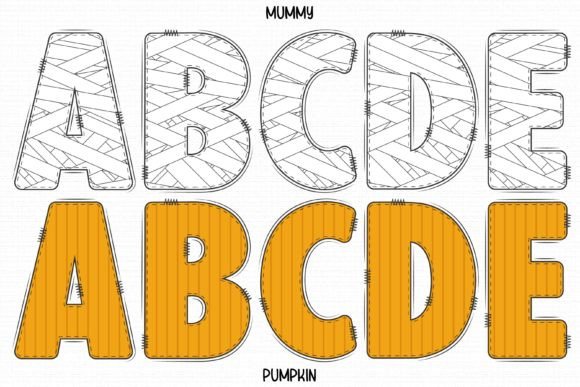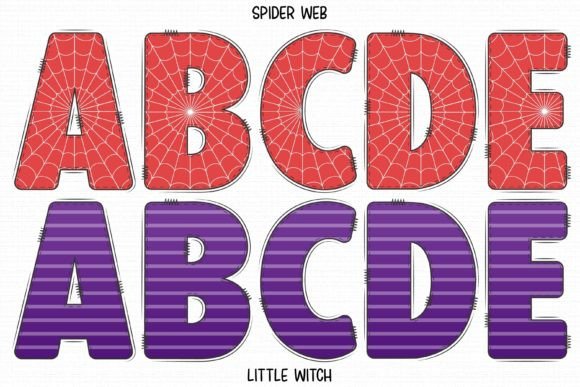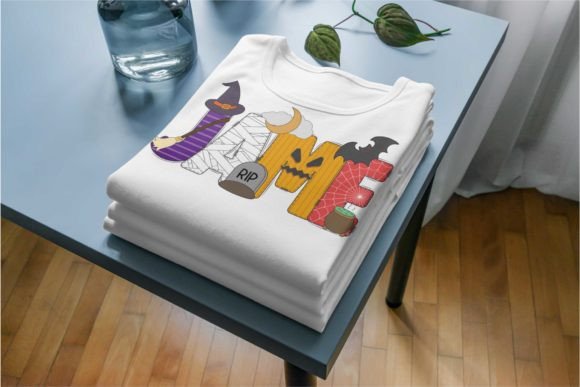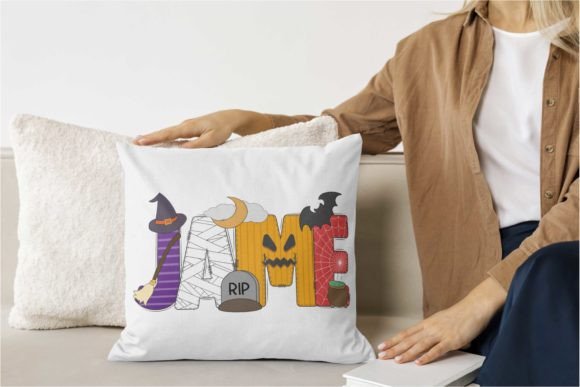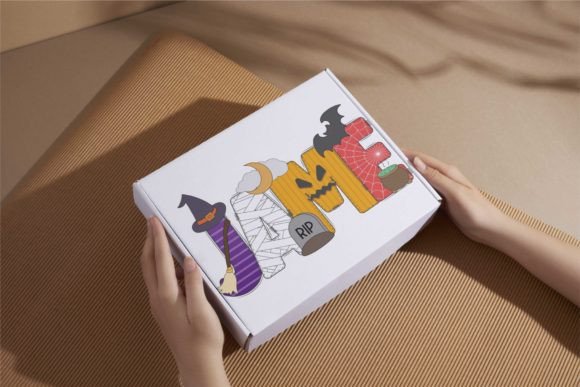
Introduction to Little Witch Font
As a designer, there’s nothing quite like the thrill of bringing a creative project to life. The moment when a concept clicks, and the design begins to take shape, is a rush like no other. But what about those moments when you’re stuck, searching for the perfect font to elevate your design and make it truly stand out? That’s where the Little Witch Font comes in – a delightful, Halloween-styled font that’s sure to cast a spell on your audience.
Perfect for designers looking to add a touch of whimsy and personality to their work, the Little Witch Font is a valuable resource that’s sure to become a go-to for any creative project. With its high-quality, detailed design and transparent background, this font is ideal for adding a pop of color and fun to your designs. Whether you’re working on a Halloween-themed project or simply want to add a touch of magic to your work, the Little Witch Font is the perfect design resource to have in your toolkit.
Key Features of Little Witch Font
- Unique, whimsical design perfect for creative projects and fantasy-themed artwork
- Designed with a playful, magical feel, making it perfect for children’s books, advertising, and other creative projects
Honest Review: Little Witch Font
I recently stumbled upon the Little Witch Font, and I must say it’s a delightful addition to my design resources. This font is perfect for a creative project that needs a touch of whimsy and magic.
- ✨ The font’s high quality is evident in its crisp and clear letterforms, making it perfect for use on a transparent background.
- ✨ The font’s unique design makes it stand out from more generic fonts, adding a touch of personality to any design project.
- ⚠️ The font’s limited character set may not be suitable for longer blocks of text.
- ⚠️ Some users may find the font’s quirky design too distracting for certain design projects.
Overall, I’m impressed with the Little Witch Font. It’s a great design resource for designers looking to add a touch of magic to their creative projects. While it may have some limitations, I think it’s well worth the download.
For the best results, use Little Witch Font on a transparent background or with a subtle color scheme to let the font take center stage.
Common Use Cases for Little Witch Font
Little Witch Font is perfect for:
Designing children’s books and educational materials
Creating invitations and party decorations
Adding a touch of whimsy to your social media graphics